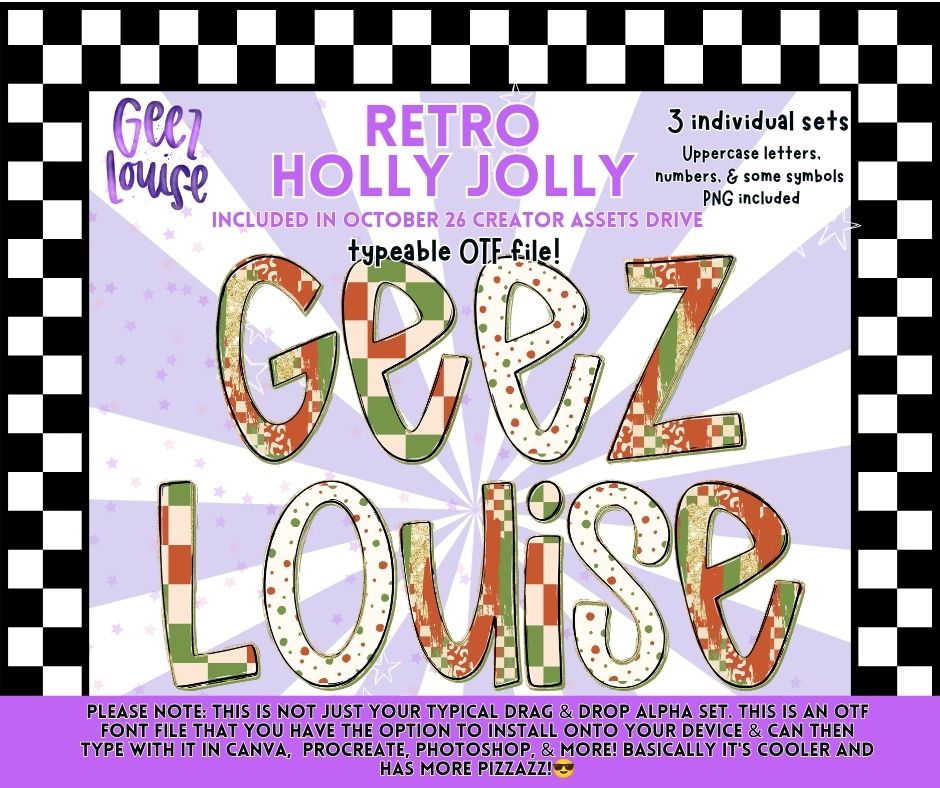
Retro Holly Jolly Alpha Bundle | 3 OTF Fonts + PNG Alphabets
A retro Christmas alpha bundle featuring 3 coordinating holiday patterns in classic red, green, cream, and gold. Includes 3 typeable OTF fonts plus uppercase letters, numbers, and select symbols as individual PNG files. 🎄✨